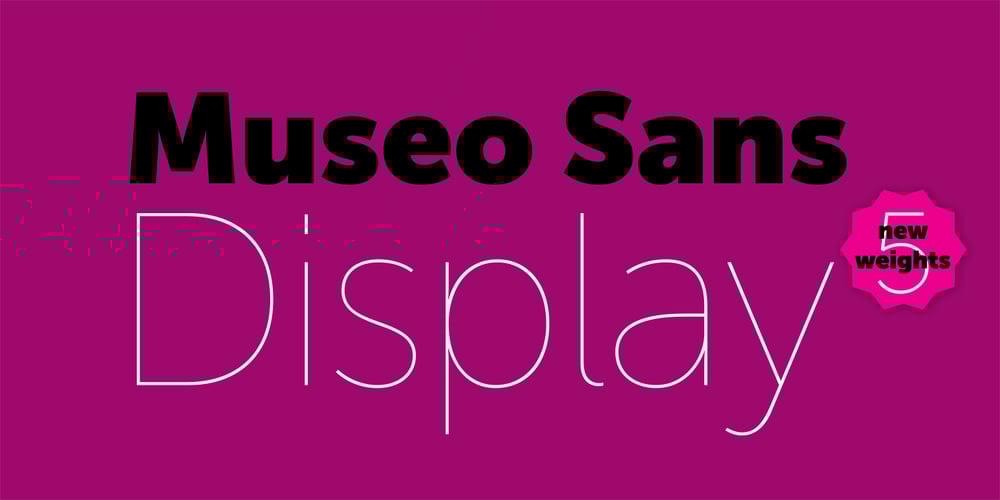
Museo Sans Display
Museo Sans Display font
Museo Sans Display Font Family was designed by Jos Buivenga and published by exljbris. Museo Sans Display contains 5 styles and family package options. Museo Sans is a full-featured, highly legible sans serif font family designed by Jos Buivenga. Museo Sans sports a familiar look and is based on the popular Museo serif typeface family. Museo Sans has a sturdy, low contrast, geometric design style that works well in both text and display sizes. The Museo Sans font family includes 10 fonts: 5 different weights with matching italics with Western and Central European language support. The OpenType features in Museo Sans includes ligatures, fractions, proportional, tabular lining and oldstyle figures. Museo Sans is a trademark of Exljbris Font Foundry and may be registered in certain jurisdictions.